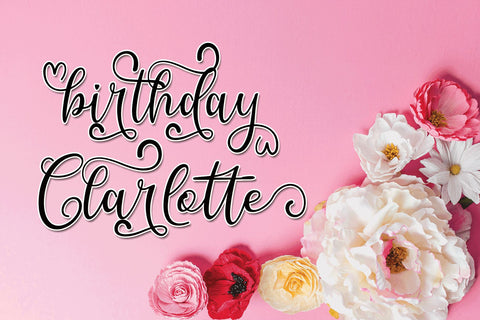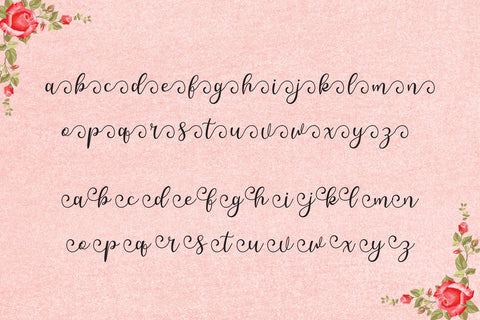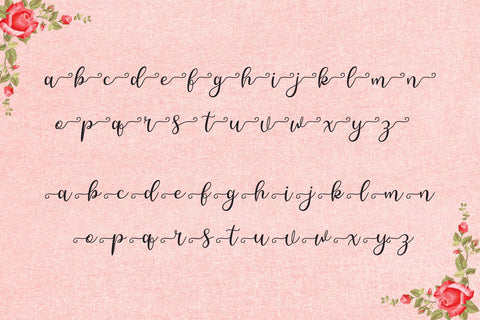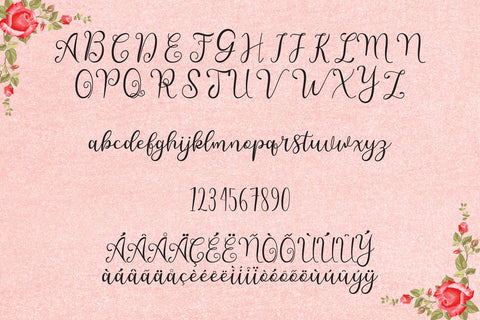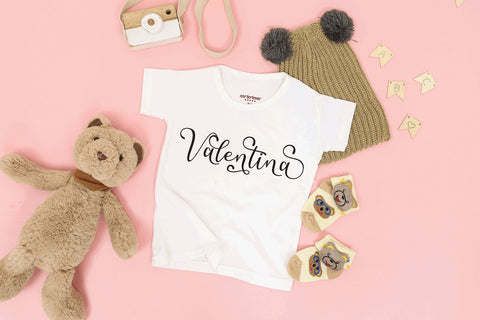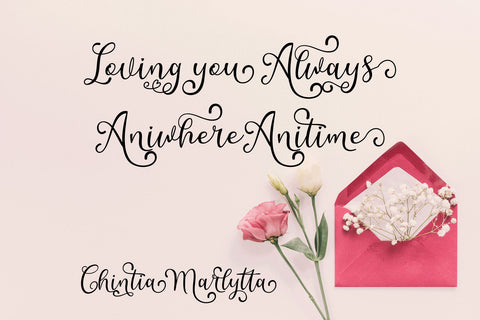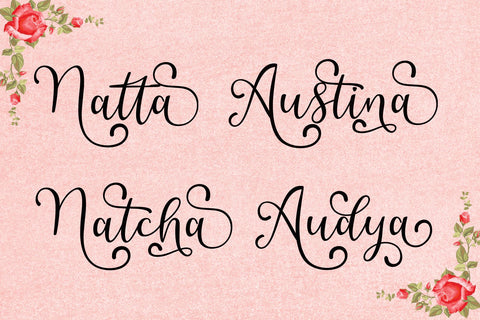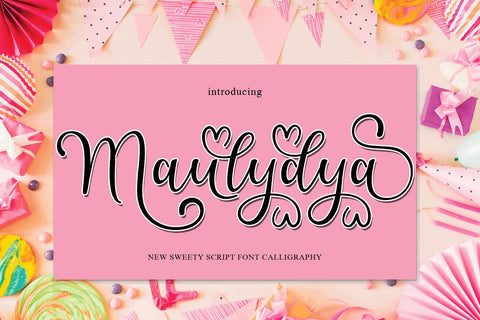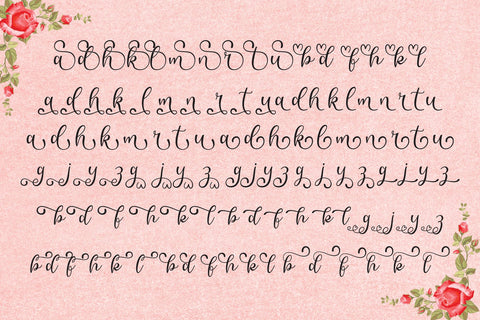
Maulydya
Maulydya is this amazing typeface handmade script font we created in freestyle for those of you who do work and crafts.
It's perfect for any type of work you're working various purposes such as logos, wedding invitations, headings, t-shirts, letterheads, signage, labels, news, posters, badges etc.
OpenType features with alternative styles, ligatures, and multiple language support.